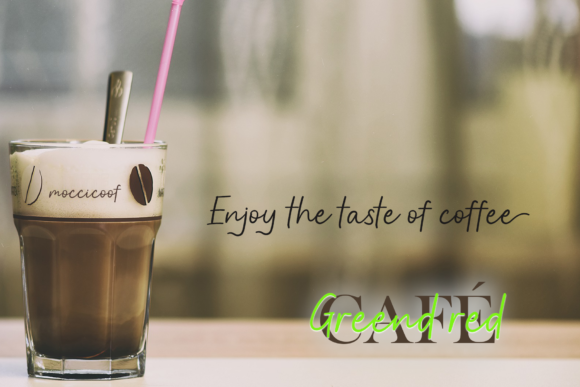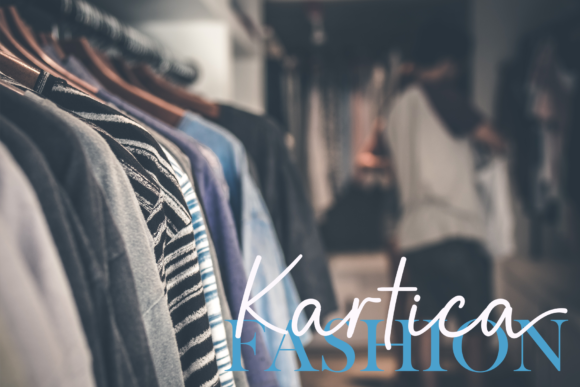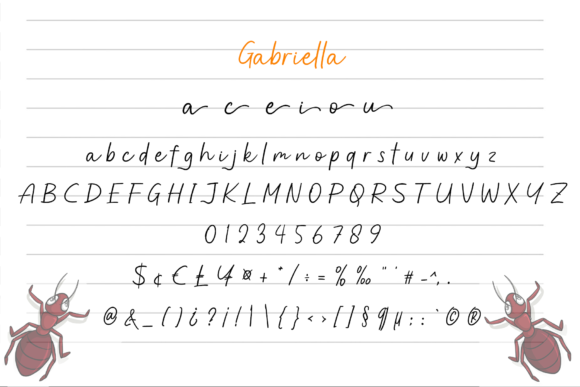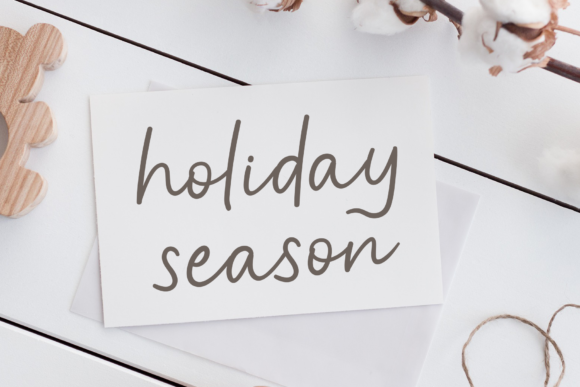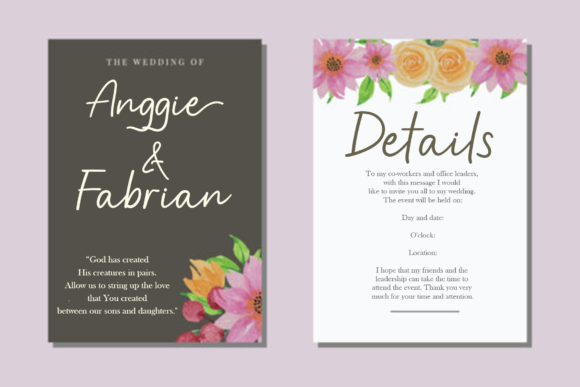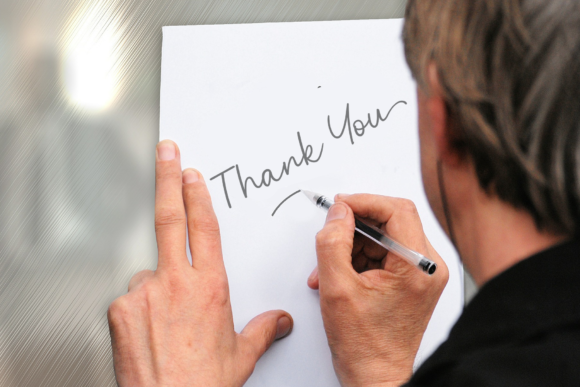
Discover the Elegance of Gabriella Font: Elevate Your Designs to New Heights
Are you on the hunt for a font that exudes elegance, sophistication, and a touch of modern flair? Look no further than the stunning Gabriella font. This exquisite handwritten font is meticulously crafted to capture the hearts of designers and crafters alike, making it a true favorite in the world of typography.
The Perfect Blend of Classy and Contemporary
Gabriella font masterfully blends traditional calligraphic influences with a contemporary twist, resulting in a truly unique and captivating typeface. Its classy roots are evident in its fluid strokes and elegant letterforms, while its modern approach ensures it remains fresh and relevant in today’s fast-paced design landscape.
Whether you’re working on a luxury brand project, a wedding invitation, or a high-end product packaging, Gabriella font is the perfect choice to elevate your designs to new heights. Its versatility knows no bounds, making it an excellent addition to any designer’s toolkit.
What Makes Gabriella Font Stand Out?
- Exquisite Handwritten Style: Gabriella font boasts a beautiful, handwritten style that adds a personal touch to any project.
- Classy Calligraphic Influences: The font’s calligraphic roots are evident in its elegant letterforms and fluid strokes.
- Contemporary and Fresh: Despite its classic influences, Gabriella font feels modern and fresh, making it perfect for a wide range of design applications.
- Highly Versatile: From luxury branding to wedding invitations, Gabriella font is suitable for a variety of projects that require a touch of elegance.
Why Designers and Crafters Love Gabriella Font
Designers and crafters adore Gabriella font for its unique ability to add a touch of sophistication to any project. Its elegant and refined appearance makes it perfect for:
- Luxury Branding: Create high-end brand identities that exude elegance and refinement.
- Wedding Invitations: Add a touch of romance and sophistication to your wedding stationery.
- Product Packaging: Elevate your product packaging with a font that screams luxury and quality.
- Digital and Print Media: Use Gabriella font in a variety of digital and print media, from social media graphics to brochures and magazines.
Tips for Using Gabriella Font Effectively
To get the most out of Gabriella font, here are a few tips to keep in mind:
- Pair it with Neutrals: Combine Gabriella font with neutral colors like black, white, or gray to let its elegance shine.
- Experiment with Sizes: Play with different font sizes to create visual hierarchy and add depth to your designs.
- Add a Pop of Color: Introduce a bold color to add a touch of personality and whimsy to your designs.
In conclusion, Gabriella font is a true gem in the world of typography. Its exquisite handwritten style, classy calligraphic influences, and contemporary flair make it the perfect choice for designers and crafters looking to elevate their projects to new heights. With its versatility and elegance, Gabriella font is sure to become a favorite in your design toolkit.